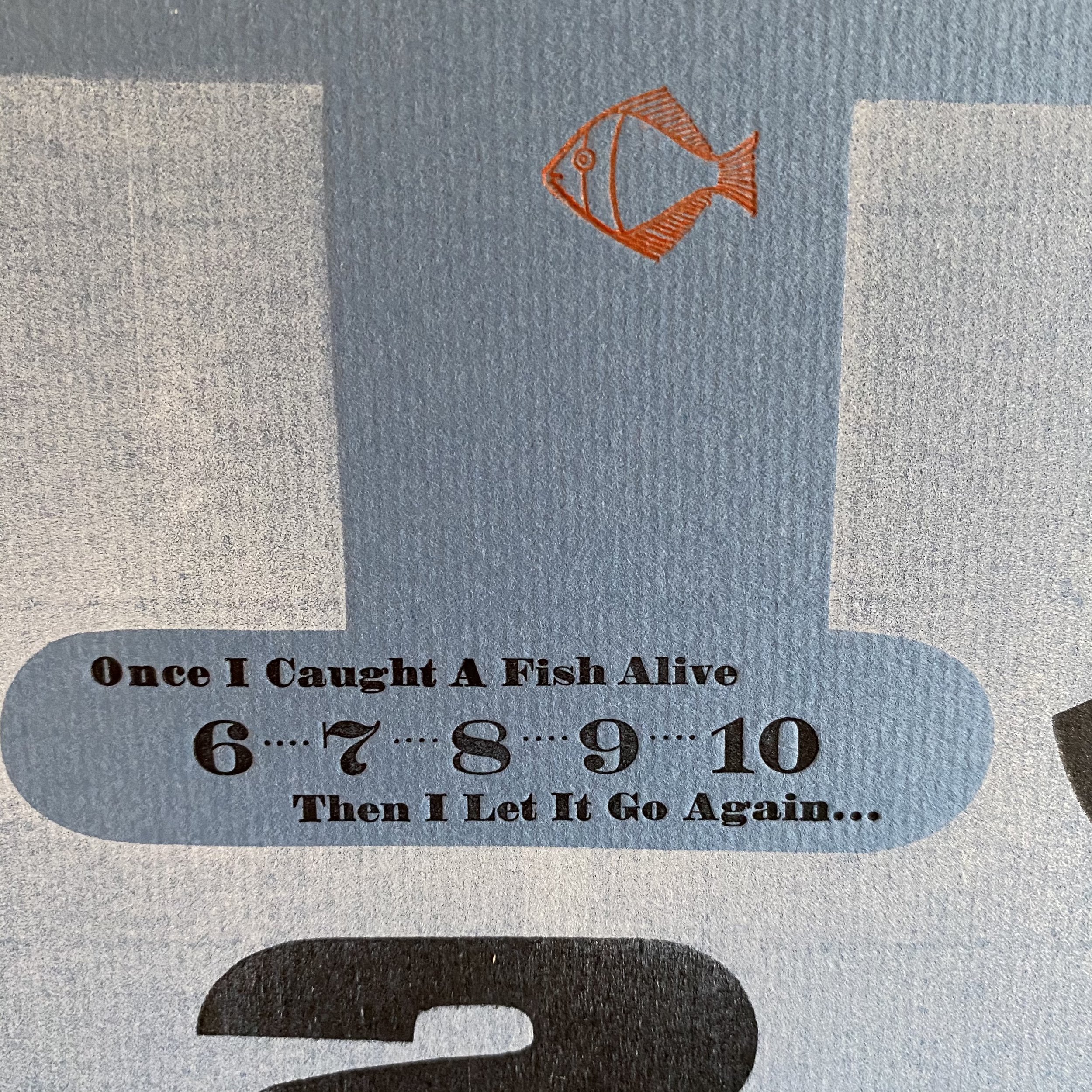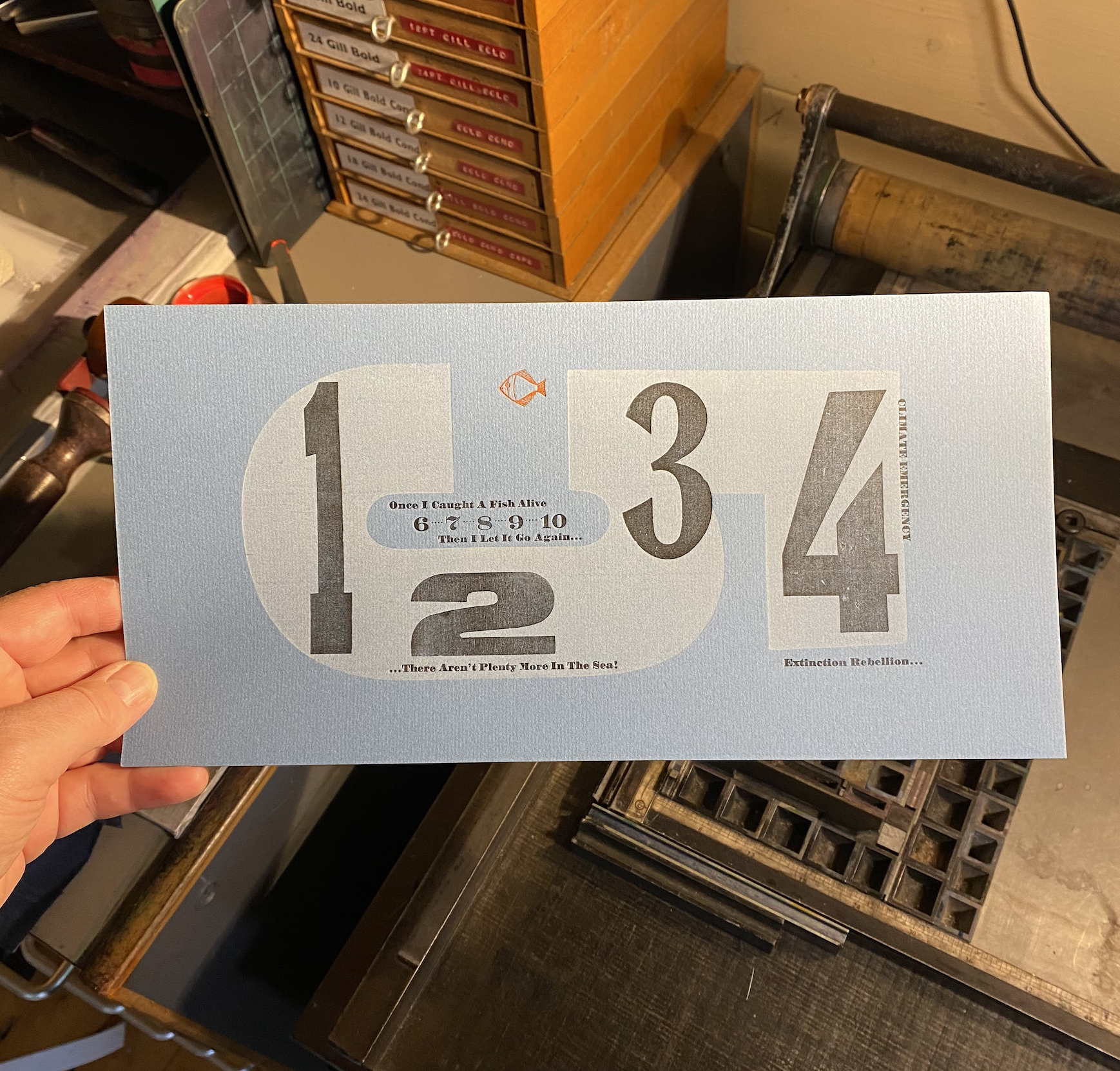
This print borrows a children’s verse to highlight the environmental emergency of loss of marine life and diversity. The large woodtype 5 in this print becomes a net with the last little fishy escaping from its negative space, to a hopefully better future
Printed using woodtype number orphans and Bodoni Ultra metal type on gorgeous, thick, rich blue paper stock.